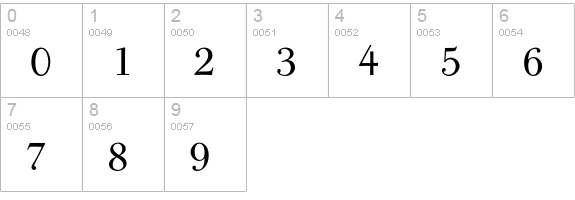
Bodoni Old Face Regular is the standard, neutral variant in the Bodoni typeface family \xE2\x80\x94 well suited to general body text, paragraphs, and standard typographic work.
Bodoni Old Face Regular font is a timeless typeface that exudes elegance and sophistication. With its classic serifs and graceful curves, this font is perfect for adding a touch of refinement to any design project. The clean lines and distinct contrast of thick and thin strokes make Bodoni Old Face Regular a standout choice for both print and digital applications. Best of all, Bodoni Old Face Regular font is available for free download at FontsMarket.com. Whether you're working on a high-end branding project or a simple invitation, this font will elevate your design with its timeless charm and versatility. Download Bodoni Old Face Regular today and add a touch of sophistication to your next project.